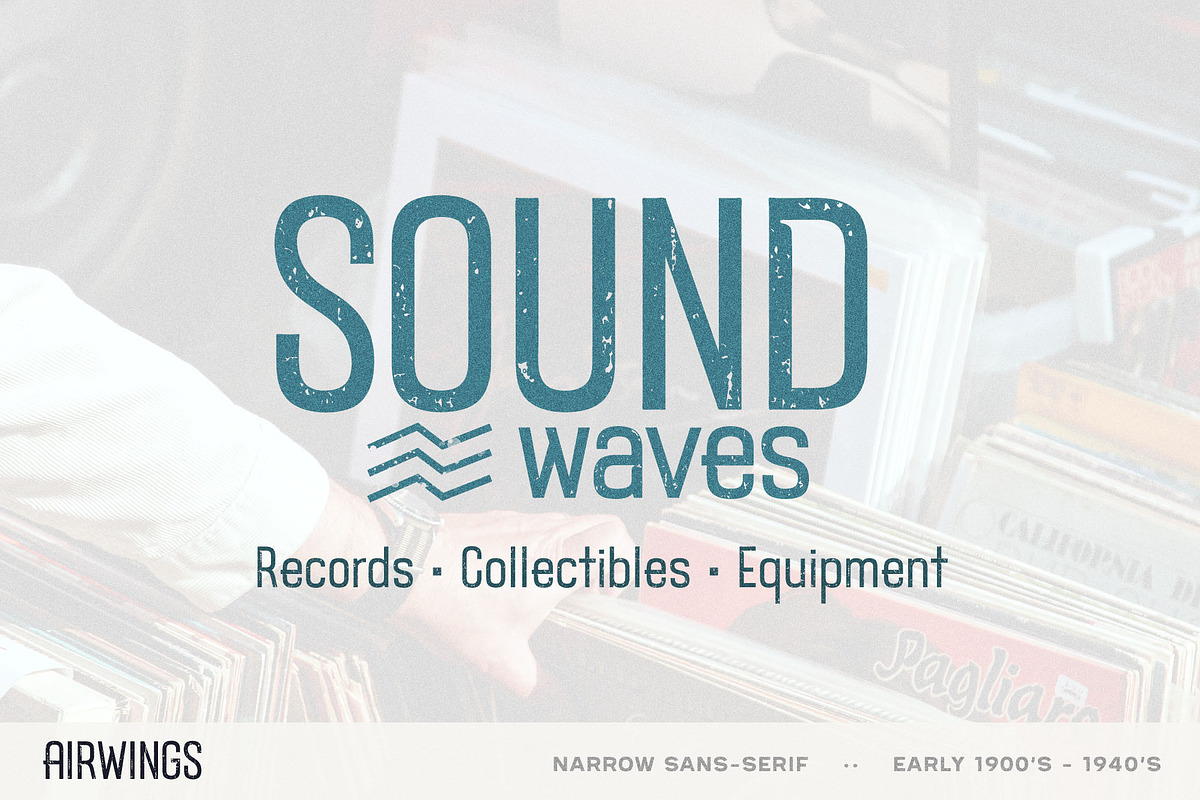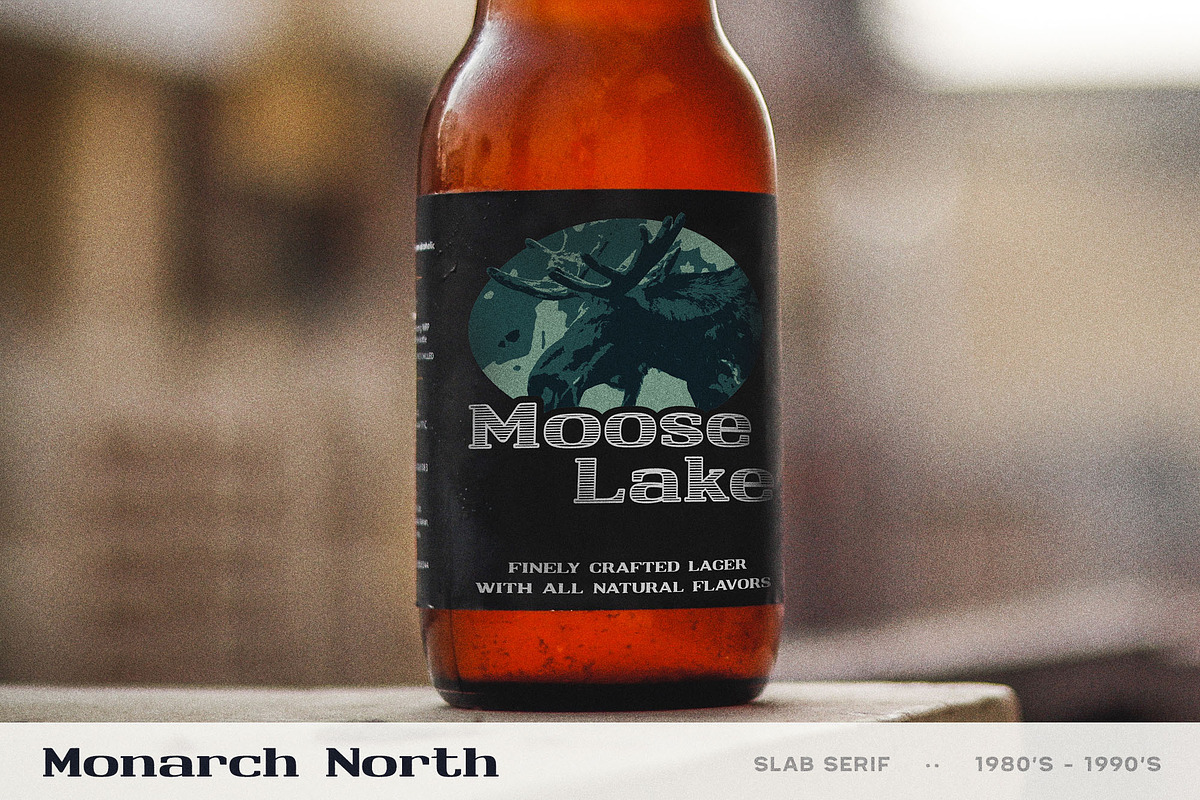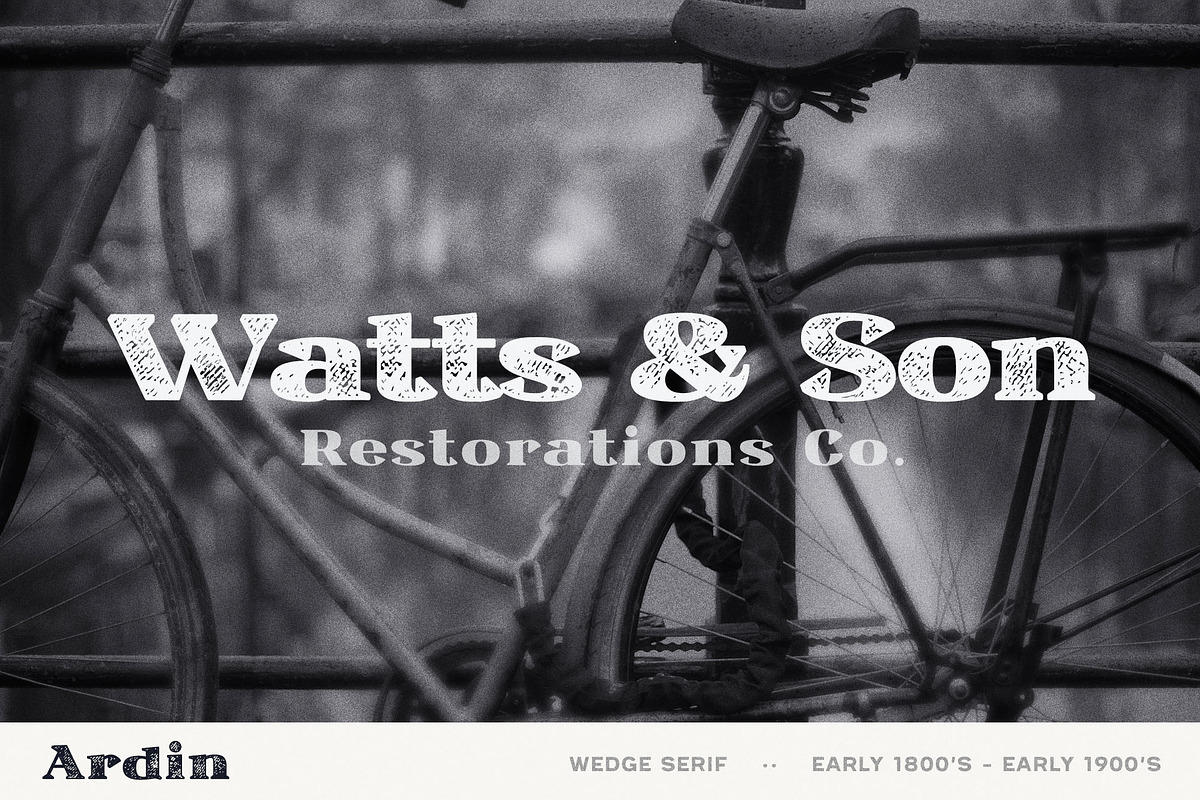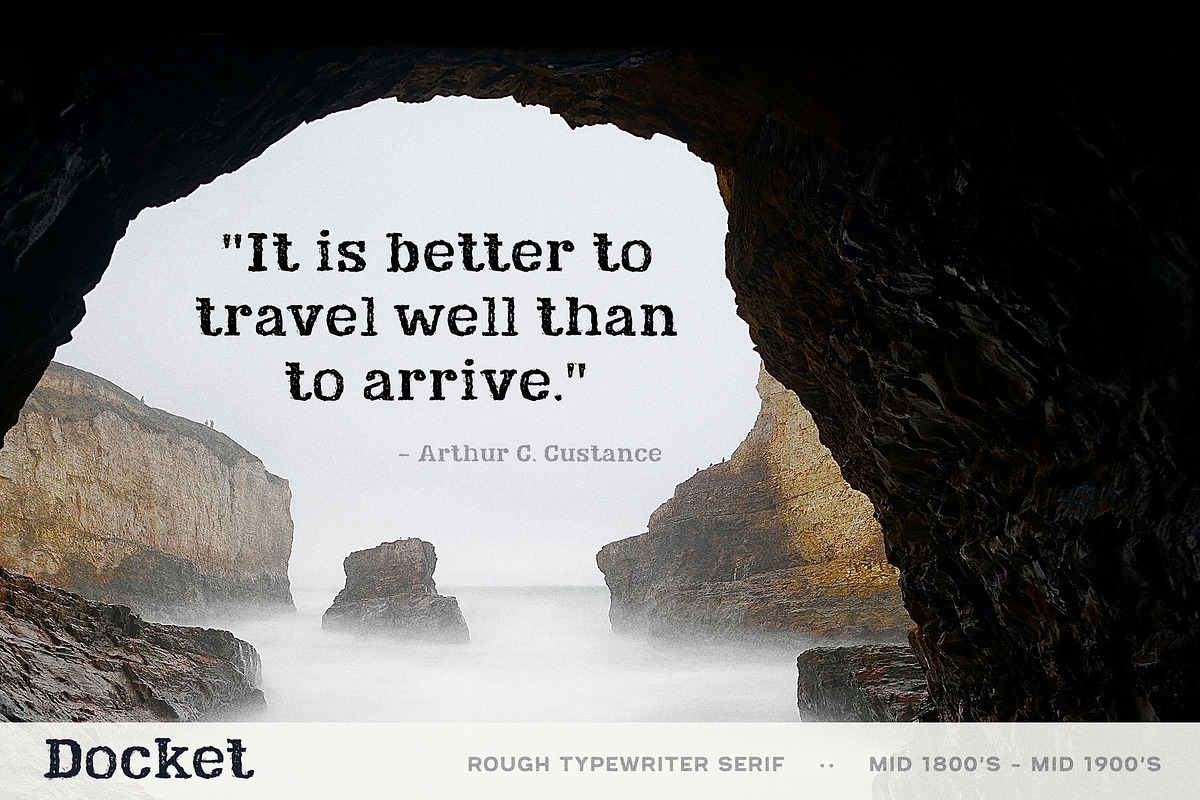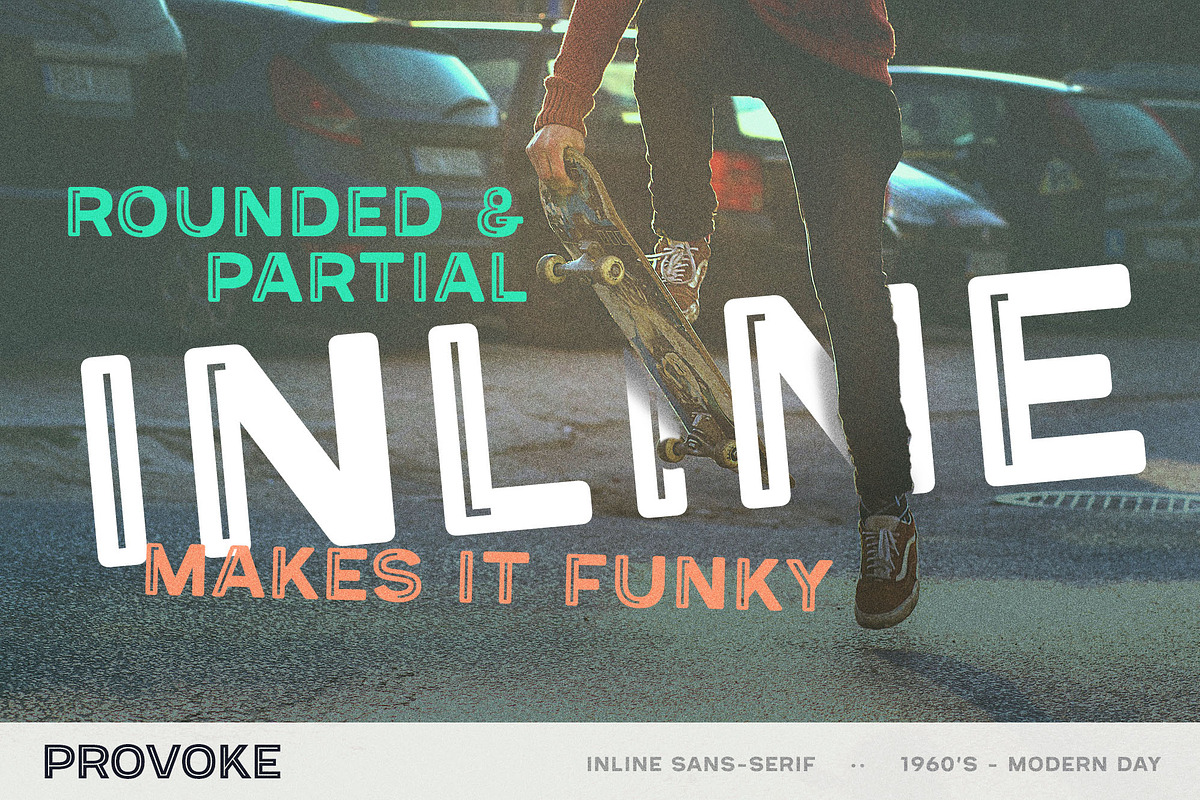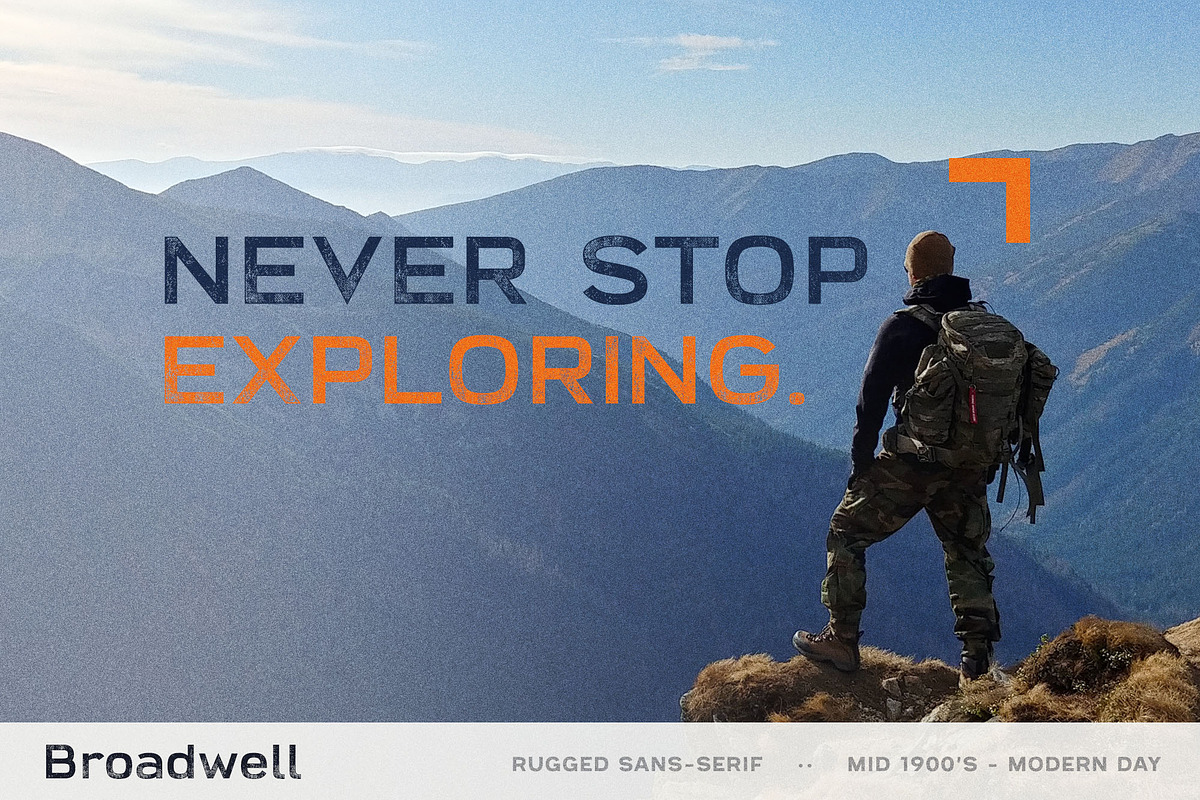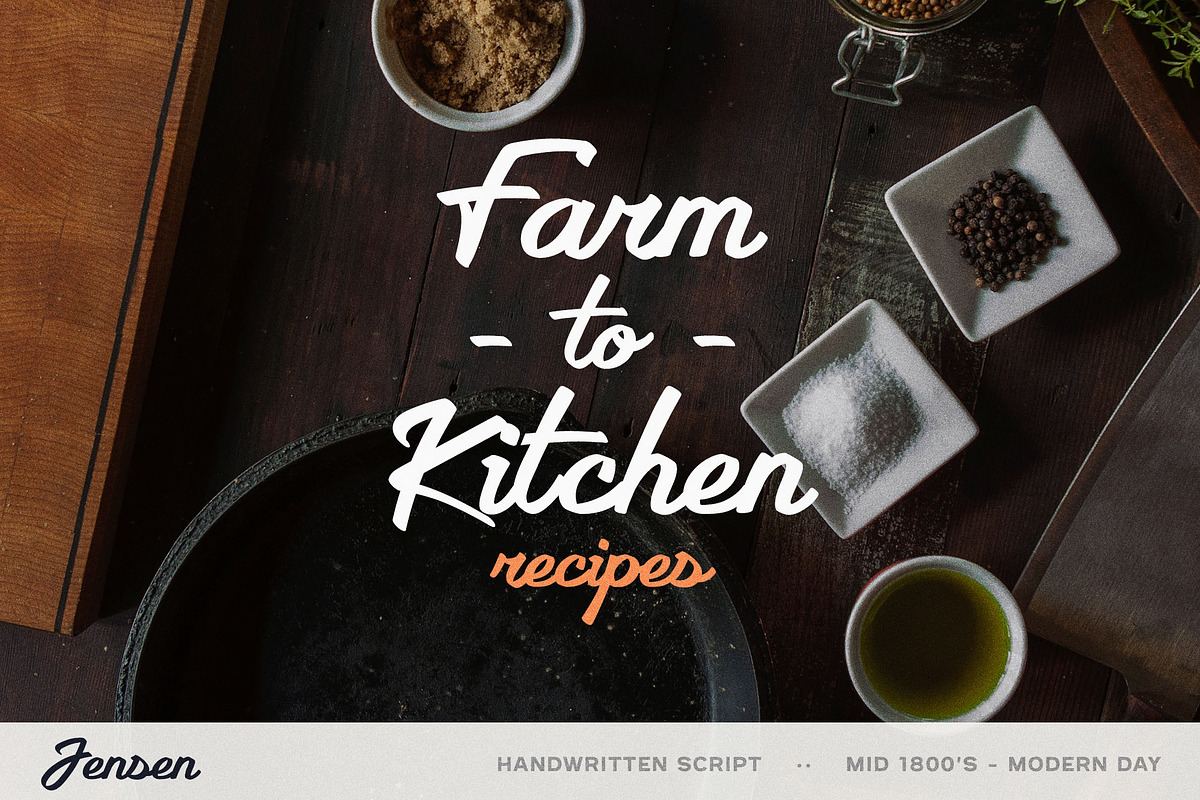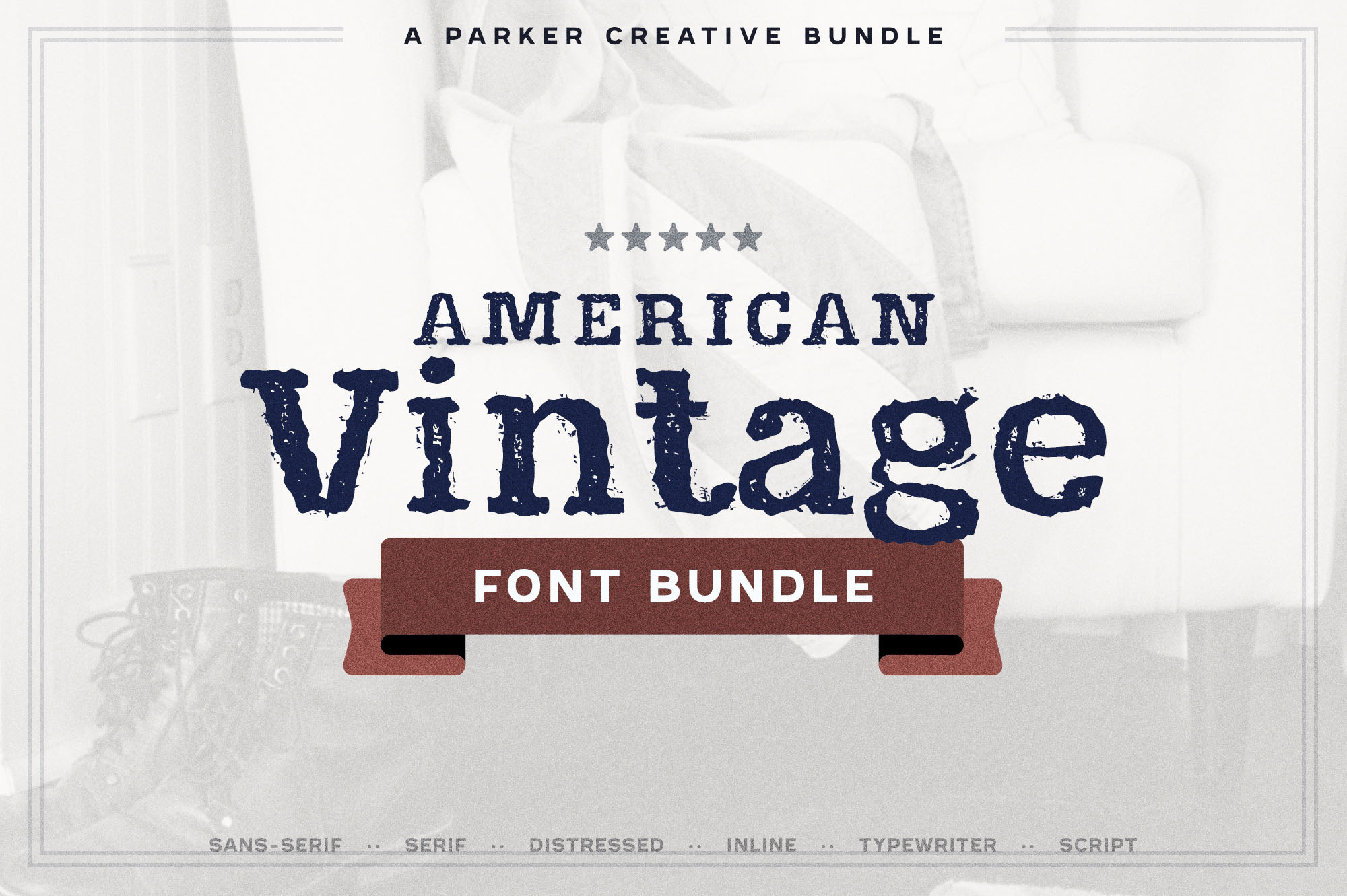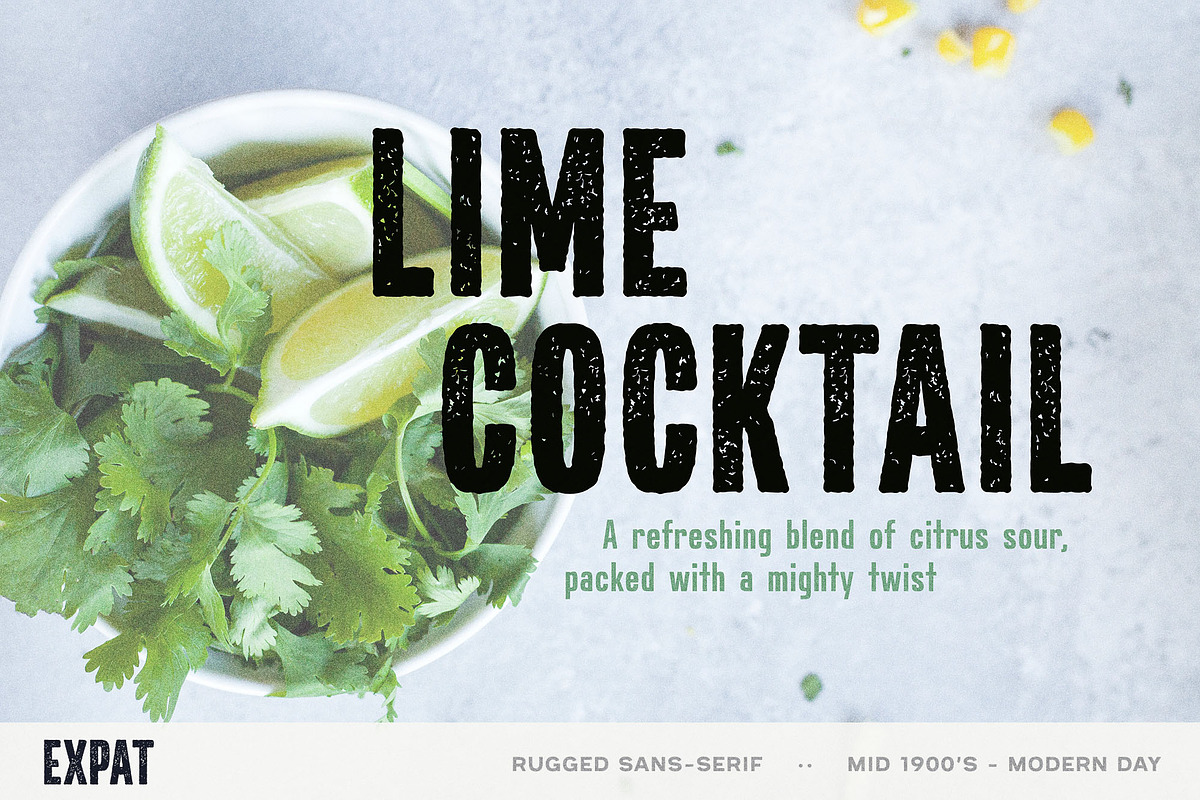
American Vintage Font Bundle
Create vintage, modern, even funky designs and capture the Americana vibe with this giant bundle from Parker Creative! The 2021 American Vintage Font Bundle features 8 premium typefaces with beautifully distinct qualities.
Inspired by historic U.S. time periods, this bundle gives you the ability to mimic many historic time periods ranging from the Industrial Revolution of the 1800's all the way to modern day.
The following complete typefaces are included in this bundle:
- Airwings - A 20th Century U.S. military inspired sans-serif
- Ardin - An 1800s - 1900s print inspired wedge serif
- Broadwell - A Mid-20th Century rugged sans serif
- Docket - An 1800's - 1900's rough typewriter serif
- Expat - A Mid-20th Century - Modern rugged sans-serif
- Jensen - A timeless handwritten script
- Monarch North - A 1980's / 1990's inspired slab serif
- Provoke - A 1960's - Modern funky inline sans-serif